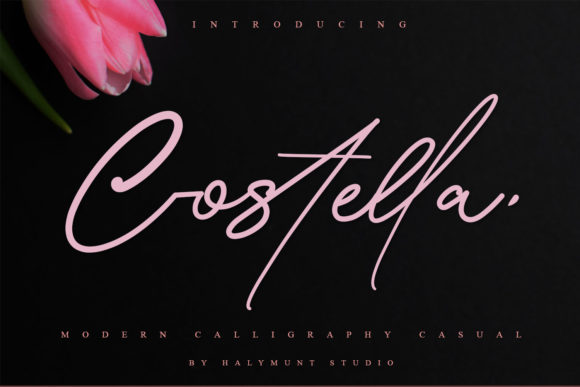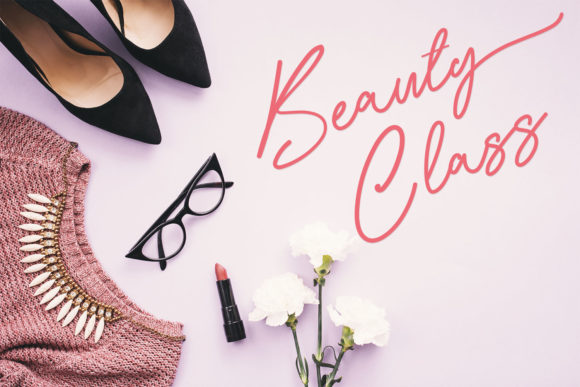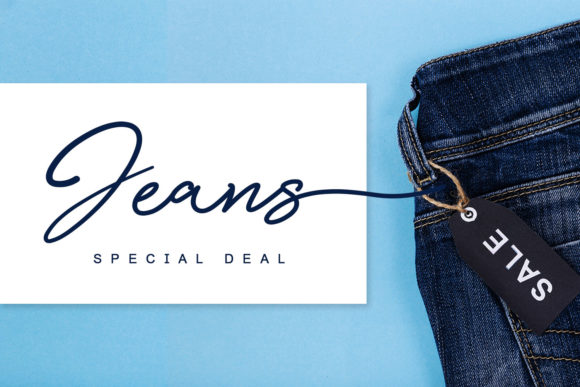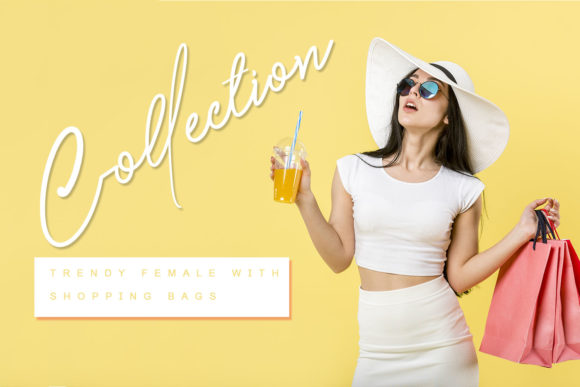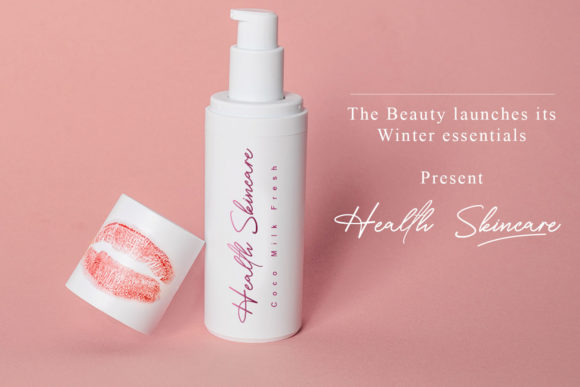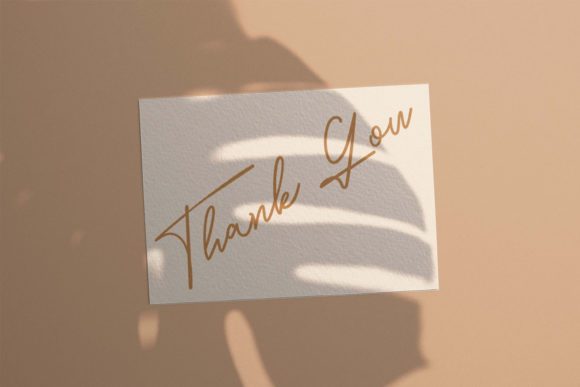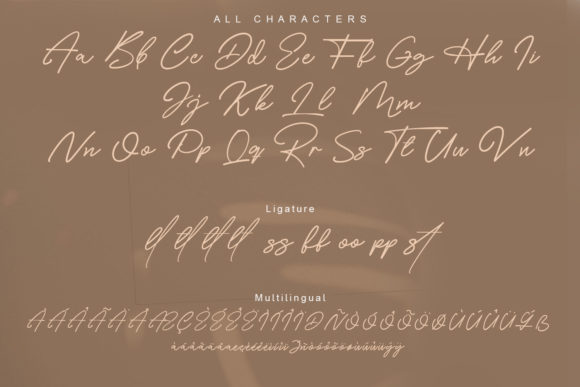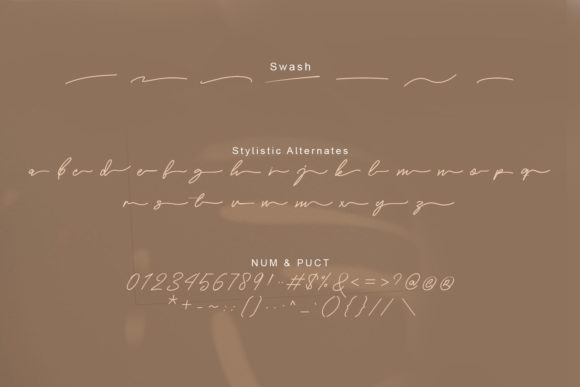
Costella Font
About Costella Font
Costella is a beautiful script font with a luxurious feel. This is a beautiful combination of timeless elegance and authentic calligraphy. It features an incredibly classic style, while still keeping a friendly feel. Costella is the perfect font for making original and outstanding designs.